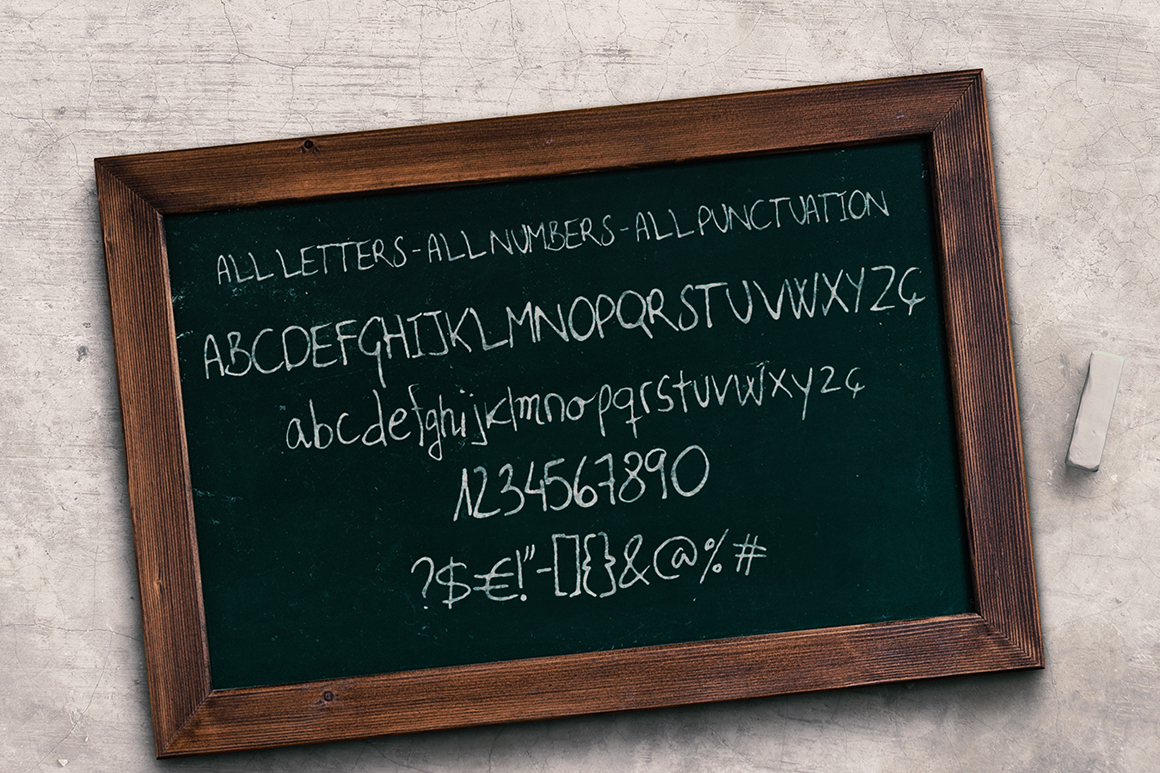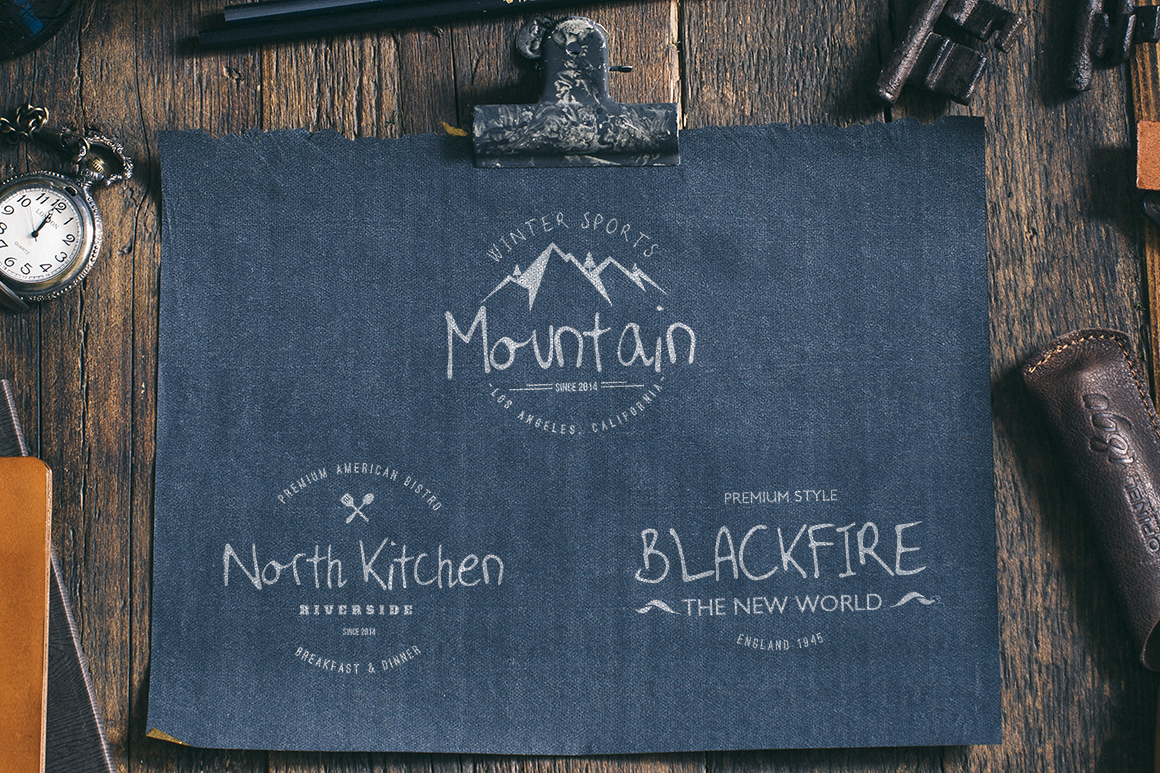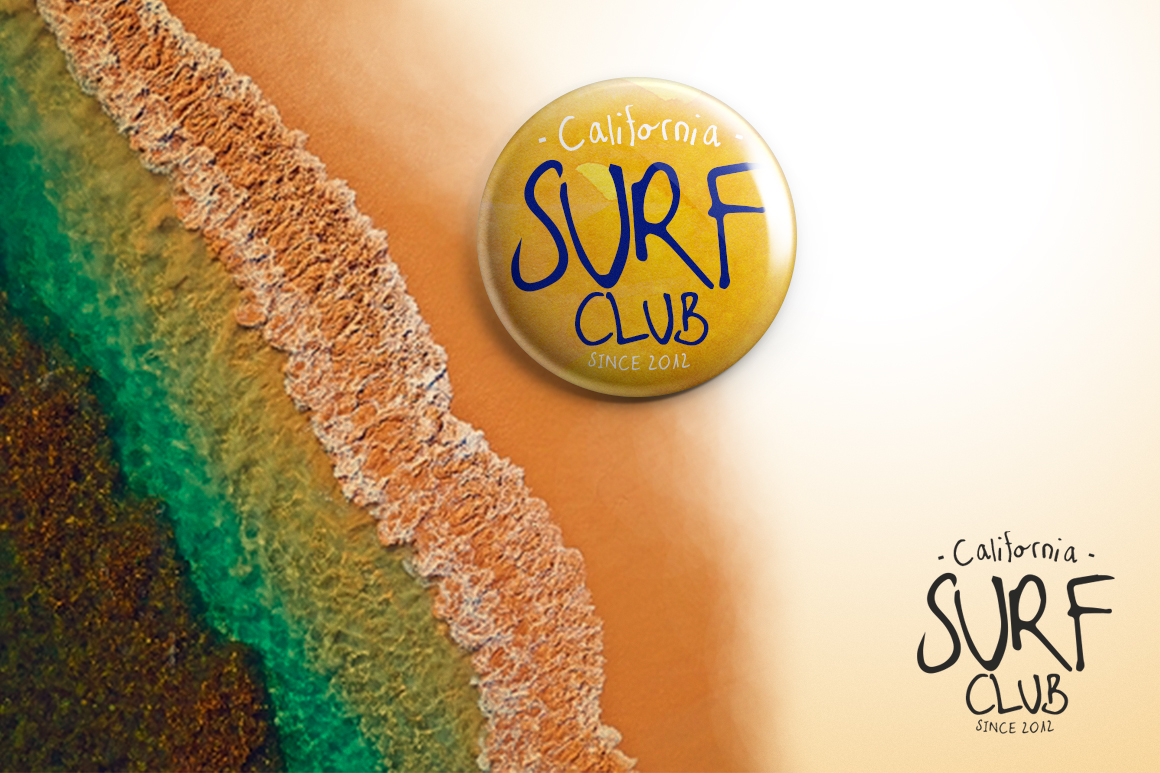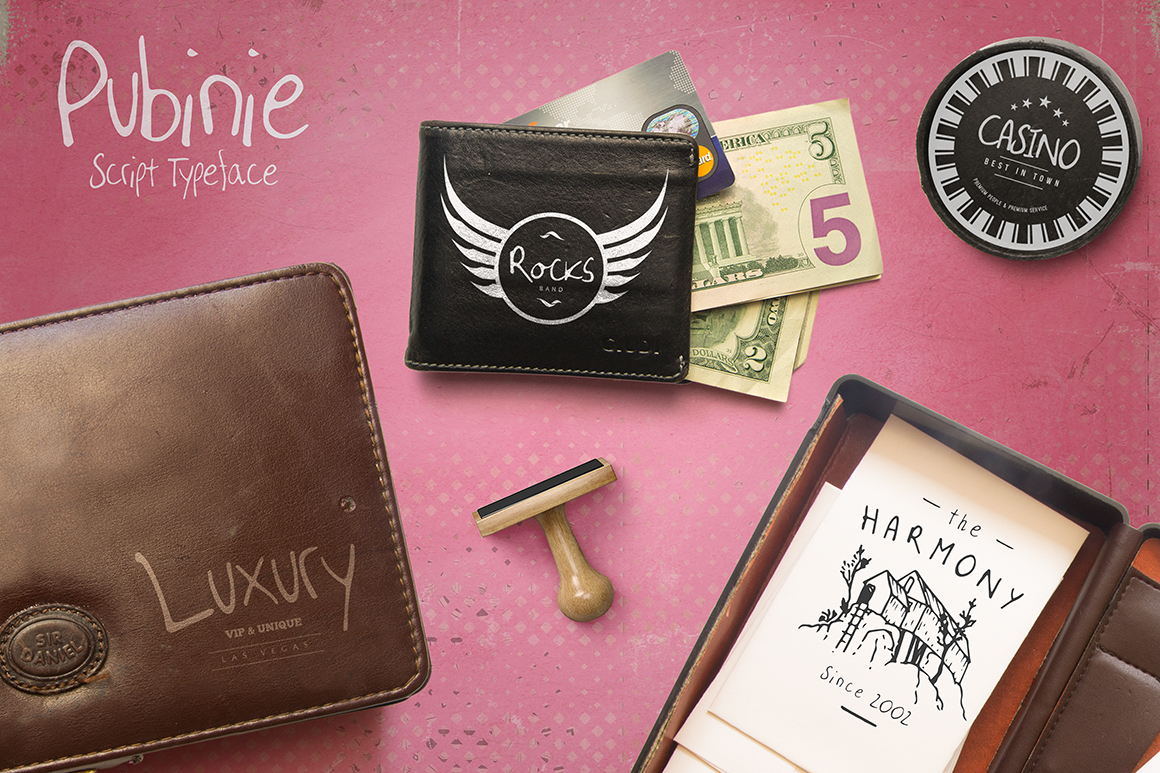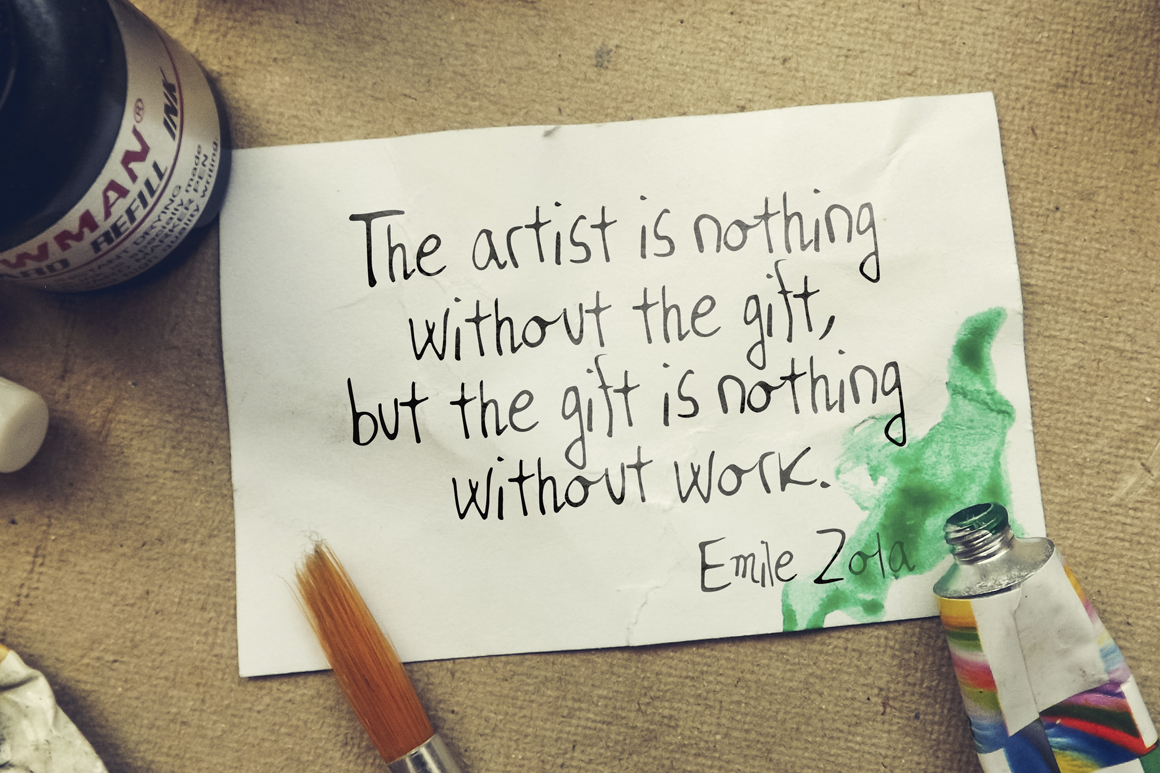
Introduction to Pubinie Font
Have you ever stumbled upon a design element that instantly sparks your creativity? For me, it was discovering the Pubinie Font – a sweet, delicate typeface that transported me to a world of endless possibilities. Its very thin lines, hand-drawn with precision, create a clean and airy feel that’s simply captivating.
Whether you’re working on a personal project or a commercial design, the Pubinie Font is sure to add a touch of whimsy and playfulness to your work, making it an essential addition to any designer’s toolkit.
Key Features of Pubinie Font
- High-quality font with a transparent background, ideal for creative projects and design resources.
- Pubinie Font is available in a range of sizes, from 12 to 72 points, and can be scaled to meet the needs of your design project.
- With a resolution of 300 DPI, Pubinie Font is suitable for use in high-resolution designs, such as print materials and digital signage.
- Unique characteristics include a modern and elegant design, making it perfect for use in creative projects, such as branding, advertising, and editorial design.
- Pubinie Font is a versatile design resource that can be used in a variety of contexts, from digital displays to print materials, and is suitable for both personal and commercial use.
Honest Review: Pubinie Font
- ✨ The Pubinie Font is available in various weights, making it highly versatile for different design applications.
- ✨ The font is incredibly easy to customize and works well with a transparent background, giving it a clean and modern look.
- ⚠️ Some users may find the font’s unique style to be too unconventional for certain design applications.
Overall, I’m quite impressed with the Pubinie Font. It’s a high-quality design resource that’s perfect for creative projects where you need a unique touch. Just be aware of its limitations and use it accordingly. With its transparent background and various weights, it’s definitely a font worth considering for your next design project.
How to Use Pubinie Font
With its transparent background, the Pubinie Font can be easily layered over other design elements, allowing for a high degree of flexibility in your creative project.
Tips for Getting the Most Out of Pubinie Font
For optimal results, use the Pubinie Font in conjunction with other high-quality design resources, such as images and graphics. Experiment with different font sizes, colors, and layering techniques to achieve a unique and visually appealing design.
Common Use Cases for Pubinie Font
The Pubinie Font is perfect for a variety of creative projects, including graphic design, digital art, and web design. It can be used to create custom text elements, headings, and body text, making it an essential design resource for any creative project.
Alternatives to Pubinie Font
Montserrat is a modern sans-serif font that works well for creative projects and designs that require a high-quality, clean look. It’s available for free download and has a transparent background, making it ideal for use on websites and digital designs.
Montserrat is similar to Pubinie Font in its modern and sleek design, but it has a more geometric feel and is more suitable for body text and headlines.